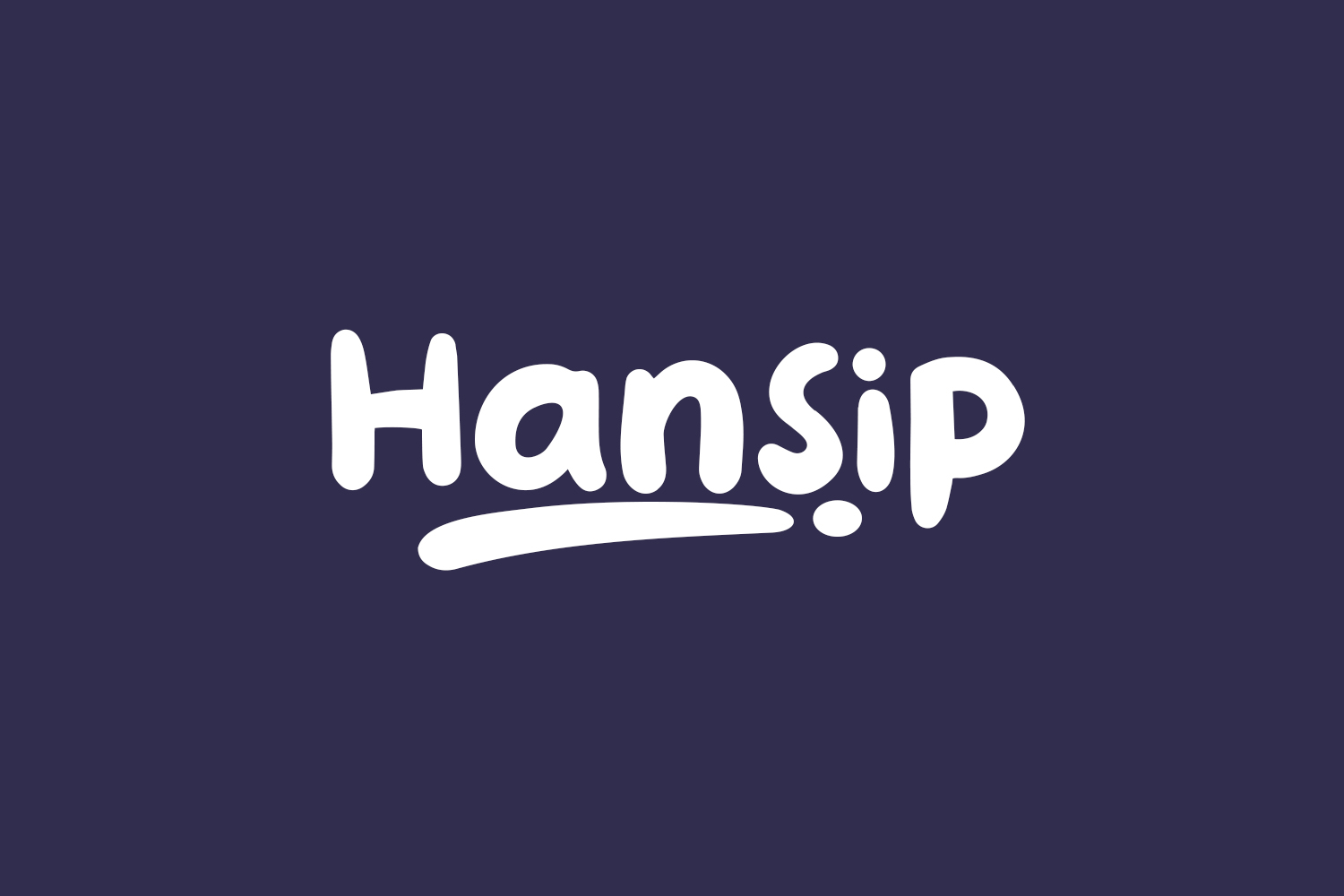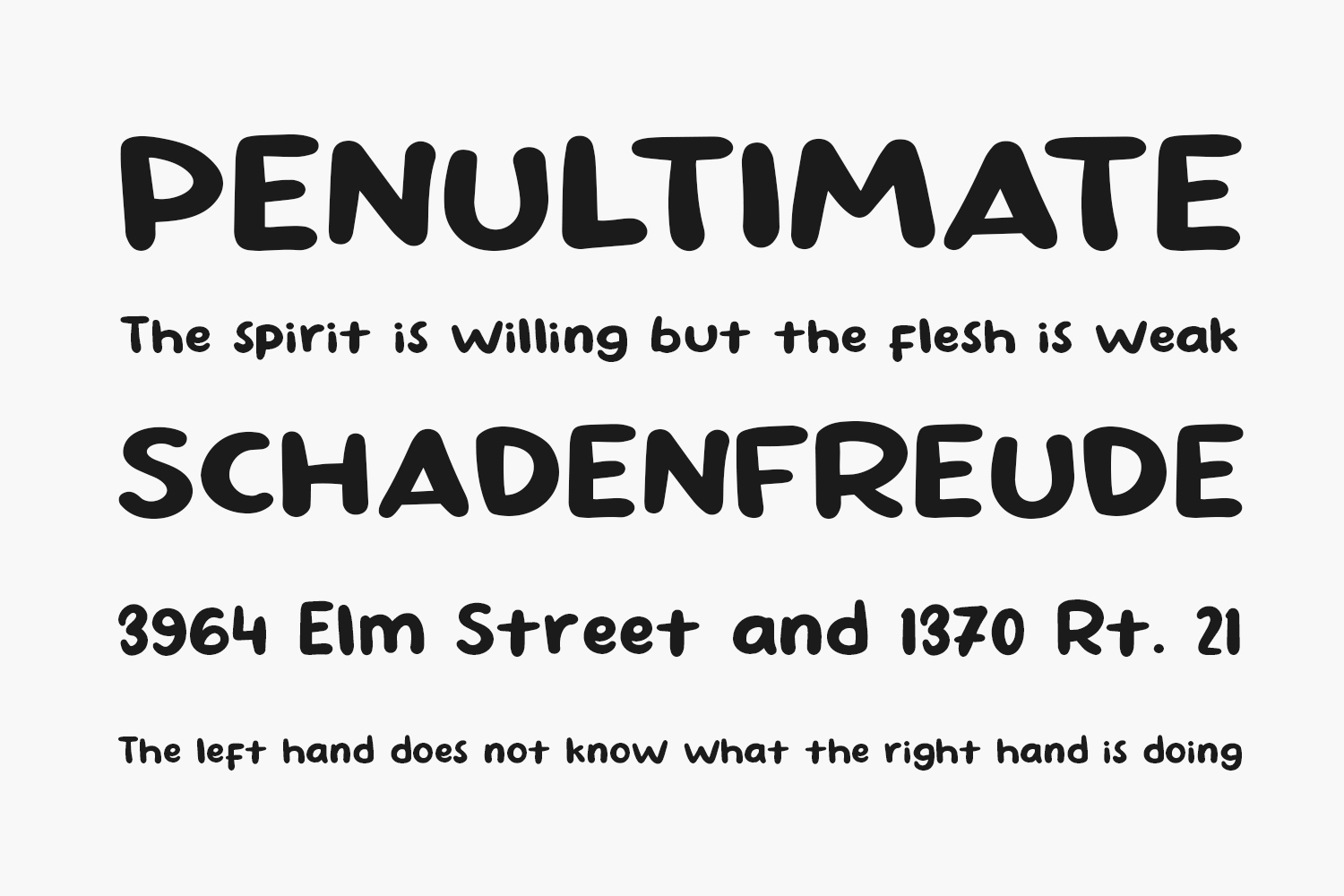
Hansip Free Font is a modern and quirky handwritten font perfect for posters, logos, magazines, book covers, banners, and more! Get this amazing typeface, and use it to create lovely designs. Hansip Free Font was designed by Khurasan and is free for personal use only. Please purchase the full version for commercial use.